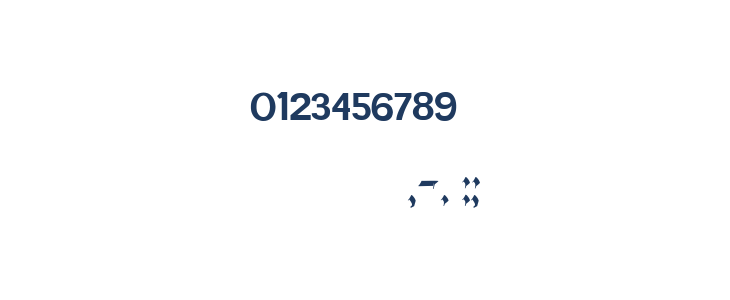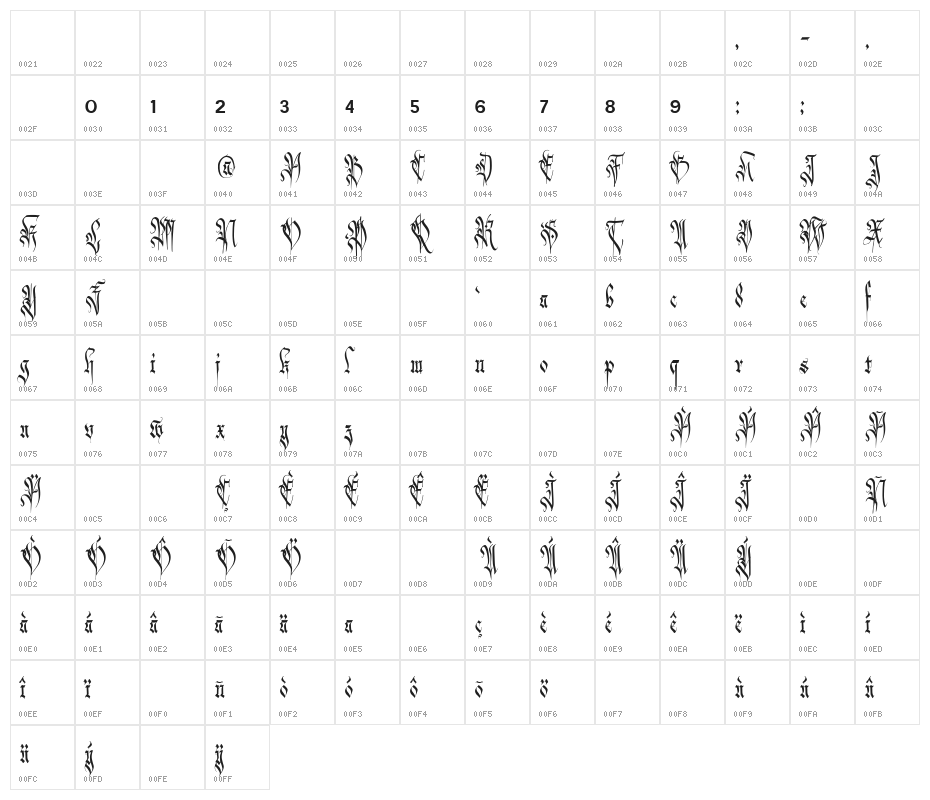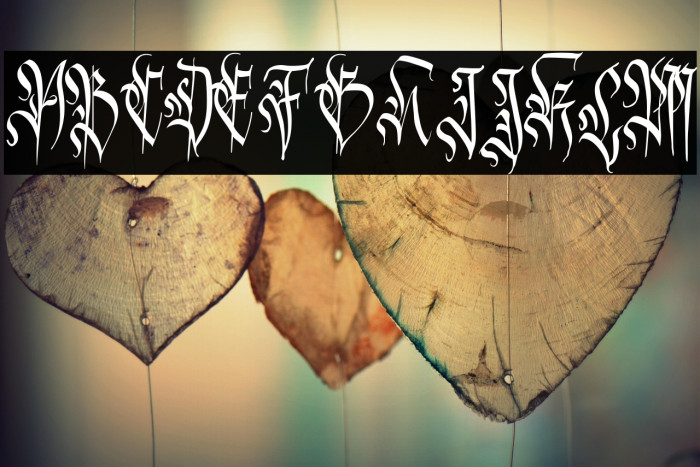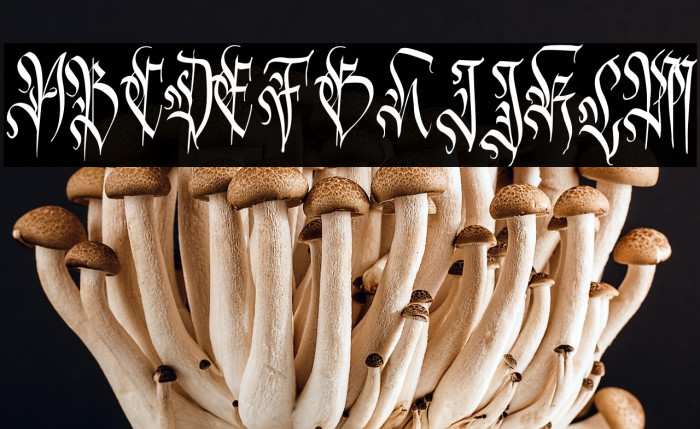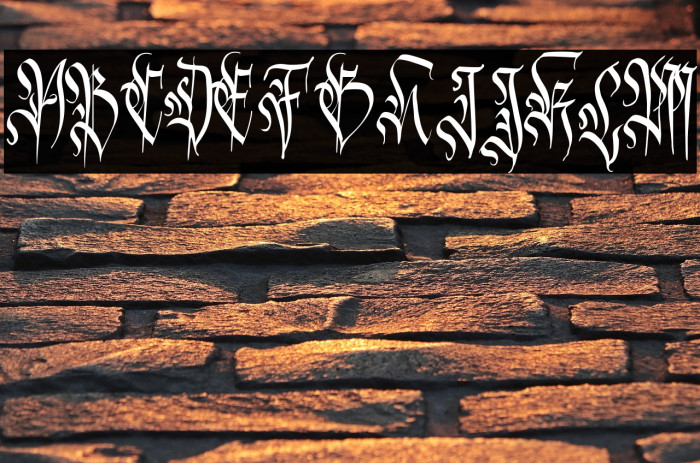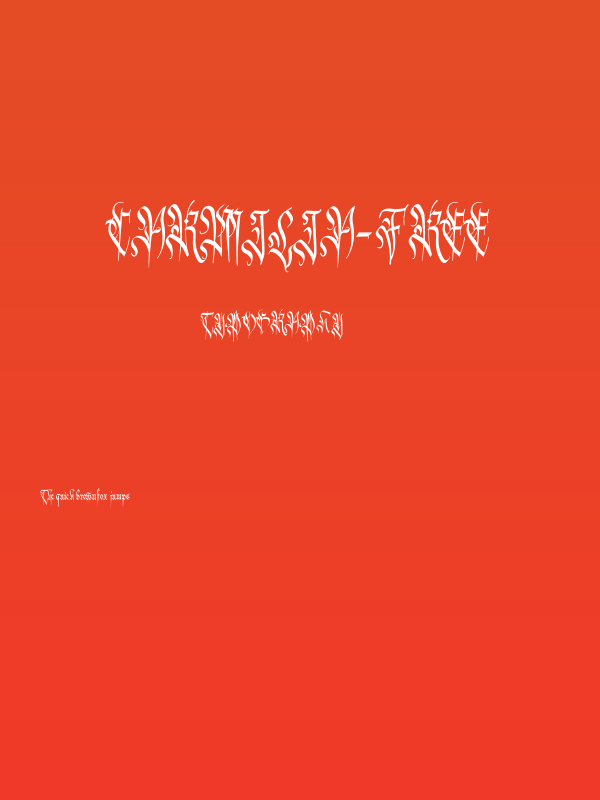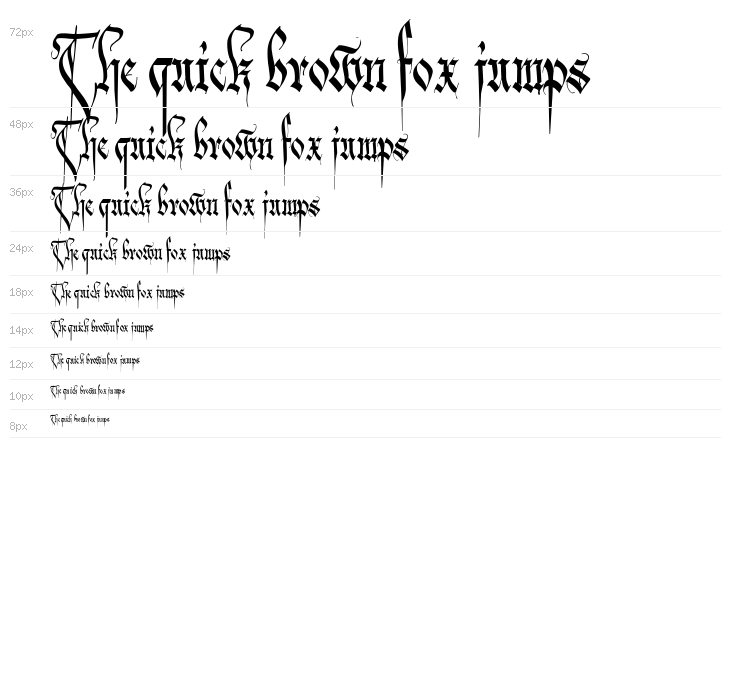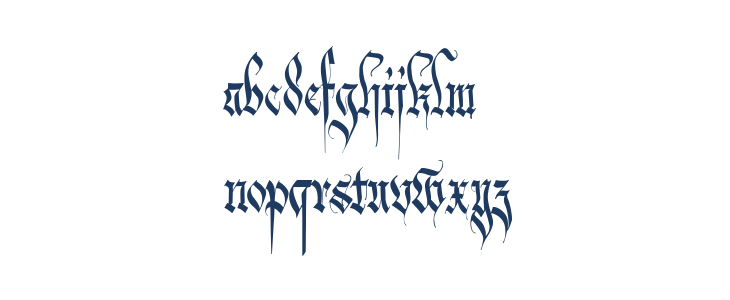
Carmilia-Free Font
Carmilia-Free Description
This font exhibits a striking and intricate design reminiscent of traditional Blackletter styles. The uppercase letters are characterized by sharp, angular strokes with elaborate flourishes, creating a dramatic and gothic appearance. The lowercase letters maintain this aesthetic with slightly more fluidity, yet still retain the sharpness and complexity of the uppercase. The numerals are bold and straightforward, contrasting with the ornate letters. Special characters are consistent with the overall style, featuring similar decorative elements. This font's unique and bold design makes it suitable for projects that require a strong visual impact.
| Overall Style | Gothic, Decorative |
| Proposed Projects | Ideal for tattoo designs, gothic-themed posters, album covers, and any project requiring a dramatic and historical aesthetic. |